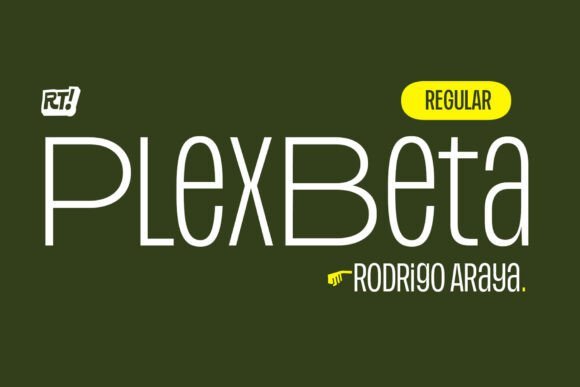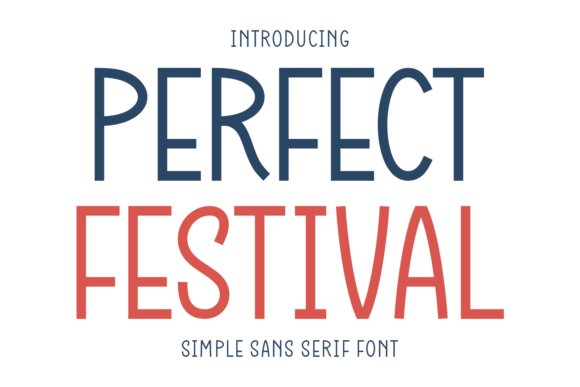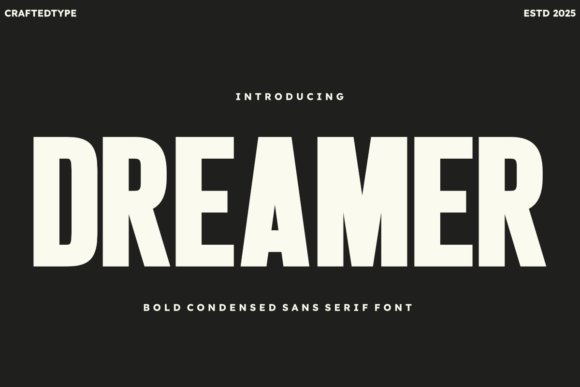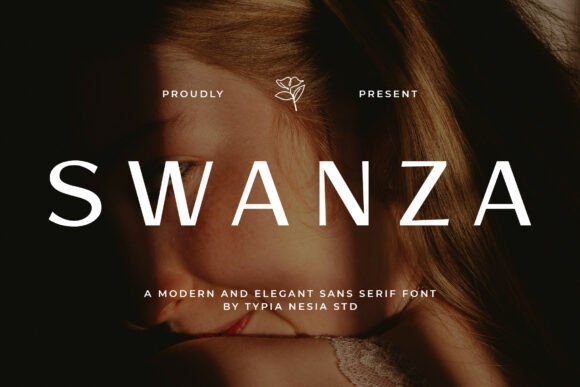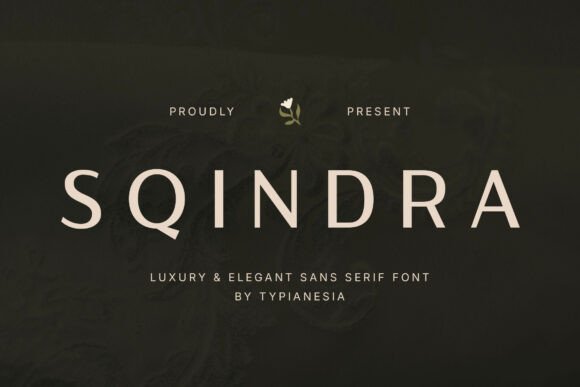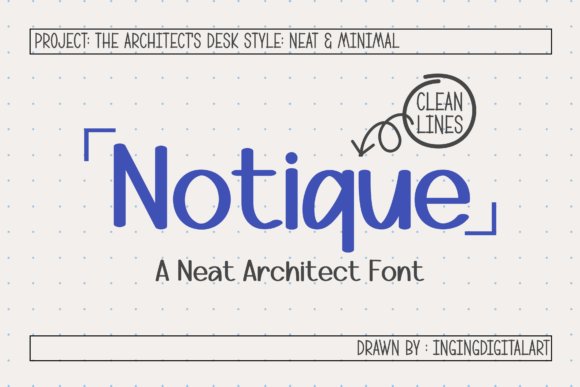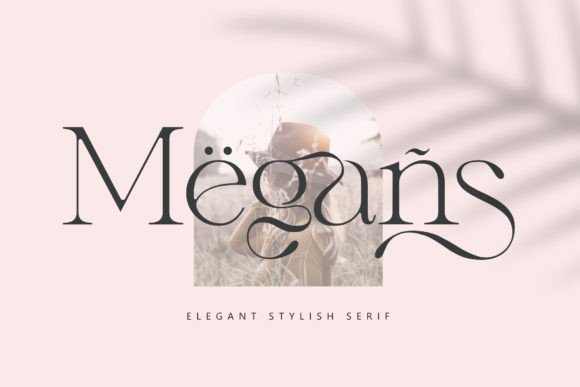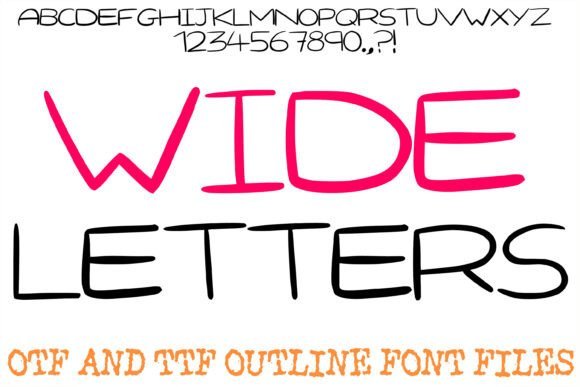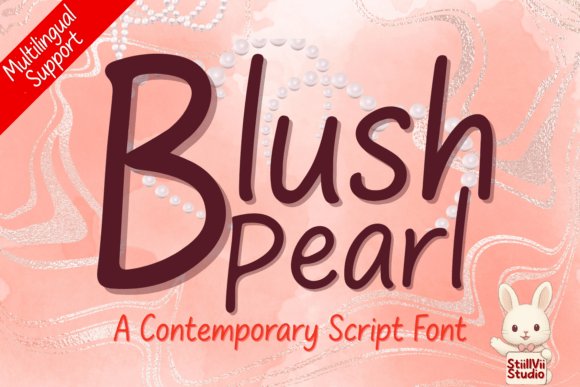
25 Timeless Wedding Invitation Fonts for Romantic RSVP Suites and Calligraphic Typefaces in 2026
Wedding invitation fonts are the first visual cue guests receive about your event, signaling formality, vibe, and theme before any other detail. Choosing the right face helps set expectations for dress code, venue, and overall mood.
Below you’ll find 25 curated typefaces spanning script calligraphy, elegant serifs, clean sans-serifs, and hand-lettered styles that work across invites, RSVP cards, and envelope liners. Each entry includes pairing suggestions, spacing and weight notes, and the situations where the font looks strongest so you can match type to stationery concept.
1. Perfect Festival
Perfect Festival
Perfect Festival is a minimalist sans-serif built around a tall x-height, monolinear strokes and softly rounded terminals that read as friendly rather than mechanical. Its neutral geometry makes it a strong candidate among Wedding invitation fonts when you want a contemporary, legible tone that won’t overpower decorative elements. Open counters and generous spacing keep small text crisp, so names and RSVP details remain clear across digital proofs and print samples.
On paper this face holds fine detail for letterpress and thermography, while on-screen hinting preserves consistent color across resolutions. Try it for headers, envelope addressing and information blocks where clarity matters; pair it with a flowing script to introduce contrast and hierarchy without losing readability.
My Recommendation: I reach for Perfect Festival when a client asks for modern, readable wedding stationery with a warm personality. Its tall letters keep small details legible and it pairs beautifully with calligraphic companions to balance formality and friendliness. For minimal save-the-dates, festival-themed celebrations, or contemporary invitation suites, it delivers a crisp, reliable presence.
2. Dreamer
Dreamer
Dreamer is a bold, condensed sans designed for high-impact display work: thick verticals, tight counters and simplified terminals make headlines impossible to ignore. The compact proportions are efficient for short, authoritative lines in posters, editorial covers and brand marks where space is at a premium. Its pared-back detailing helps maintain legibility at distance and when reproduced on merchandise.
Because the strokes print cleanly on apparel and vinyl, Dreamer performs well in print-on-demand applications and crafting workflows like vinyl cutting. Use a light sans or an elegant script alongside it to soften the composition, or deploy it alone for logos, packaging and strong title treatments that demand presence without ornament.
My Recommendation: I choose Dreamer when a project needs confident visual weight-festival posters, merch collections, or bold identity work are ideal. Its condensed form saves horizontal space while remaining readable on tees and stickers, and it holds up in both screen printing and heat transfer. For balanced layouts I pair it with a delicate script or thin sans to introduce contrast.
3. Plex Beta Regular
Plex Beta Regular
Plex Beta Regular provides evenly spaced, geometric letterforms that sit comfortably in both body text and branding contexts, offering a measured, modern voice without fuss. The type’s consistent rhythm and moderate contrast support long reading blocks on web pages and printed manuals, while hinting keeps small sizes crisp on screens. Its restrained personality makes it a reliable choice when clarity and order are priorities.
Pairing options include a humanist sans or a soft script when a touch of warmth is required, and its spacing adapts well to modular grid systems and editorial layouts. Use Plex Beta for user interfaces, documentation, and identity work where predictable typographic behavior matters and the typography should support content rather than call attention to itself.
My Recommendation: I recommend Plex Beta Regular for projects that need steady, readable typography-corporate sites, product docs and long-form editorial are perfect fits. It won’t compete with imagery and it keeps typographic color uniform across pages. When I want personality, I combine it with a rounded display or a subtle script for contrast while preserving overall calm.
4. Serambie Font
Serambie Font
Serambie is a modern serif with refined, slightly condensed letterforms and graceful terminals that reference classic types while feeling current. Its moderate stroke contrast and open counters keep blocks of text readable and give headlines a poised presence. Subtle ligatures and alternate capitals introduce personality without pulling focus from the message.
Serambie performs well at display sizes and in small print, making it a strong option for stationery, editorial layouts, and web headers; it ranks among Wedding invitation fonts that lend formality without excess flourish. Pair it with a clean sans for extended copy or a delicate script for RSVP lines to balance ornament and clarity. A modest weight range and italics let you nudge tone from solemn to celebratory as needed.
These 25 selections cover a wide range of sensibilities-from intimate handwritten scripts to refined formal faces-so you can pick fonts that feel true to your celebration. Testing a few options in mockups or with a print sample will reveal how letterforms read at different sizes and on textured paper.
Use the pairing tips and usage notes here to finalize a cohesive stationery set, then run a small print proof before ordering full runs. Good typography is a subtle way to make the day feel intentional and well considered.